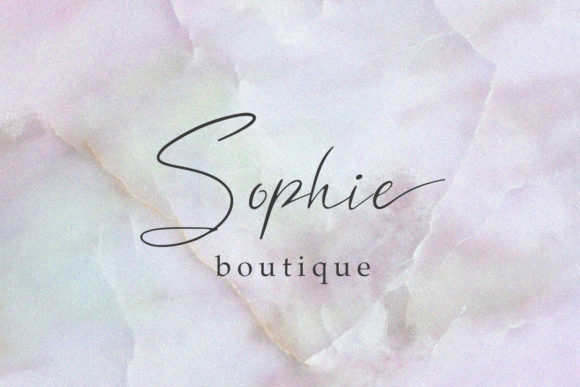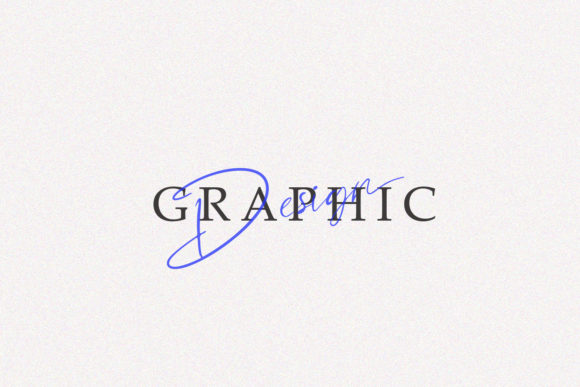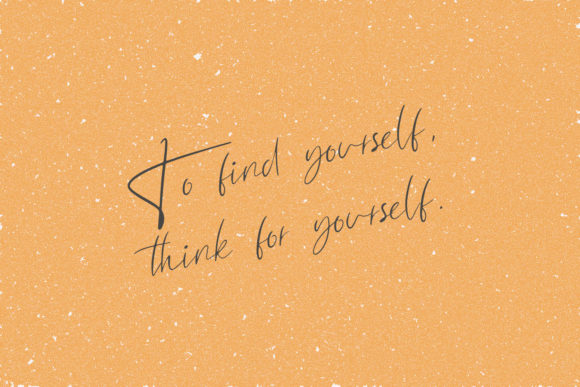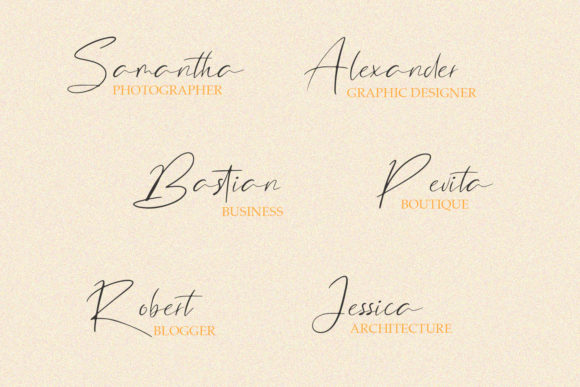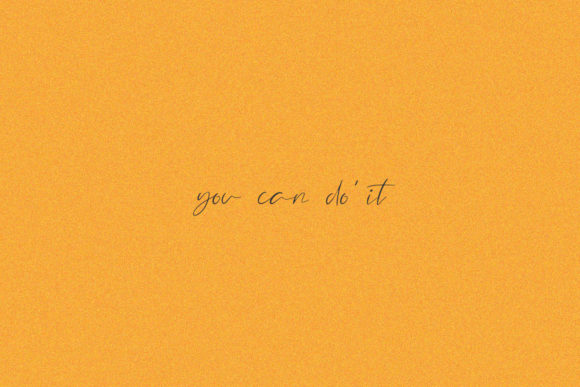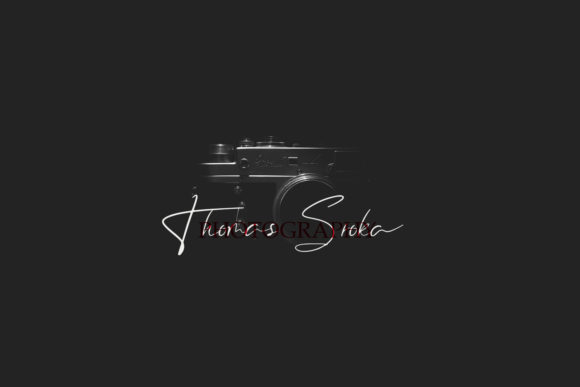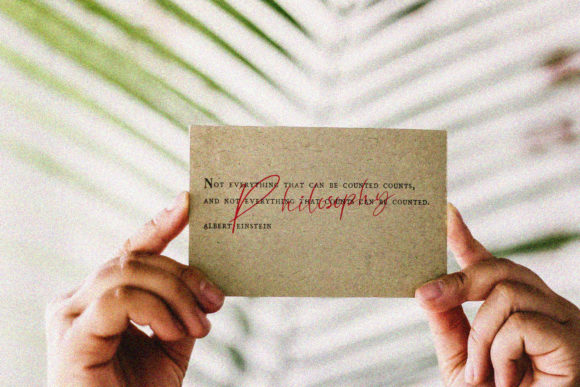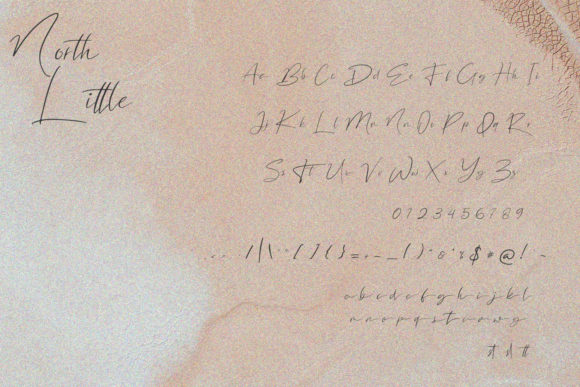
North Little Font
About North Little Font
North Little is an elegant script font. Carefully hand-crafted, it will add an authentic touch to any design project!